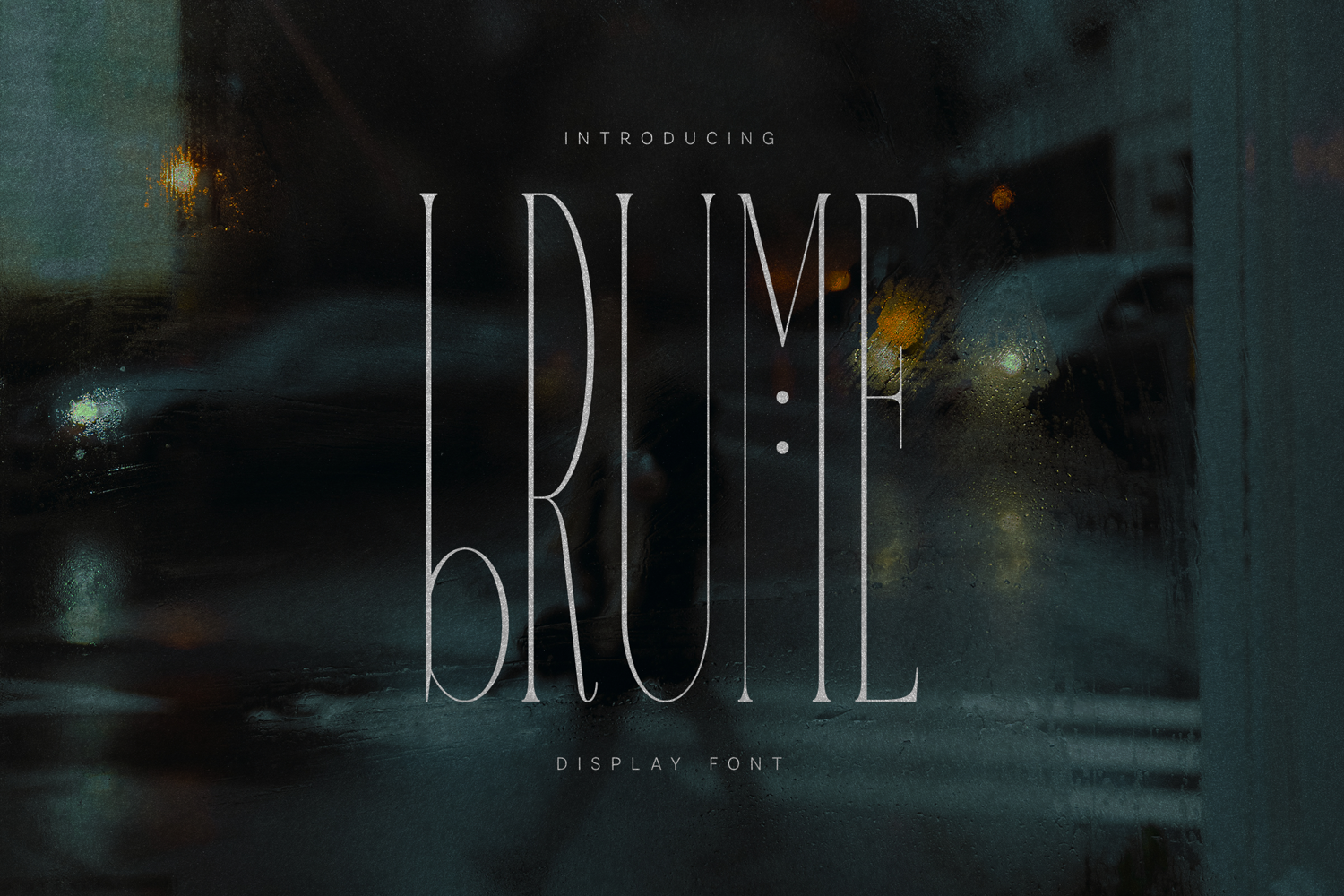
Brume Elegant Condensed Display Font
Brume is an elegant condensed display font with ultra-thin strokes and tall proportions, designed to evoke sophistication, calm, and modern refinement. Its delicate construction and extended vertical rhythm make it ideal for high-end editorial design, fashion branding, luxury visuals, and atmospheric typography.
The font feels light yet intentional, balancing minimalism with character. Brume performs beautifully in headlines, posters, magazine layouts, album covers, and cinematic titles where subtlety and emotion matter more than weight.
Brume includes uppercase and lowercase characters, numerals, punctuation, and extensive multilingual support, making it suitable for both expressive creative work and professional applications.
• Uppercase & lowercase letters
• Numbers & punctuation
• Display-focused condensed style